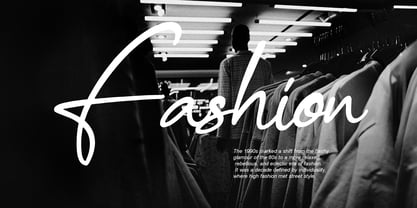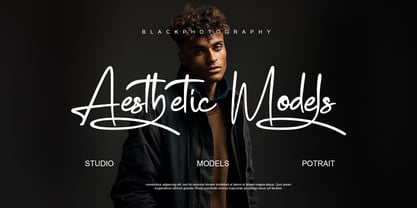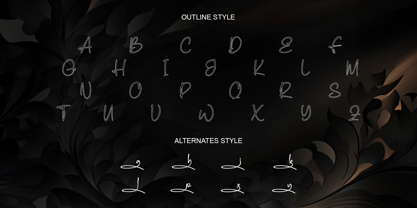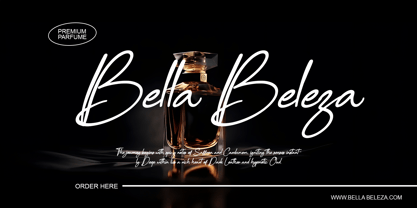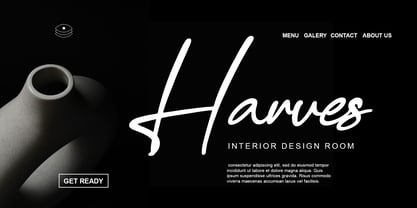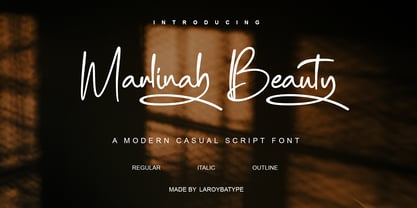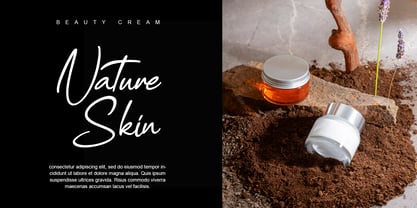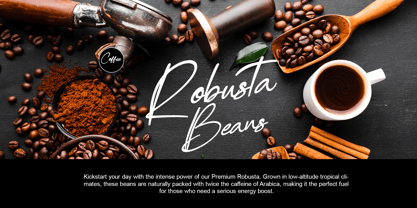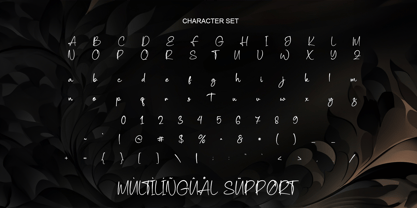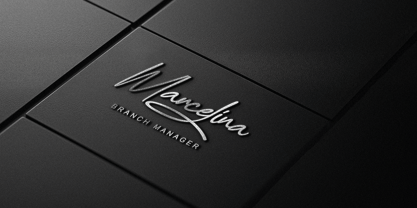
Marlinah Beauty
by Laroyba Type
The Marlinah Beauty Font Family was designed by Habib Abdur Rofi and published by Laroyba Type. Marlinah Beauty contains 4 styles and family package options. More about this family
Marlinah Beauty – Modern Casual Script Font Discover the elegance of handwritten charm wrapped in a modern twist with Marlinah Beauty. This casual script font blends confidence, luxury, and a natural handwritten feel — perfect for any design that needs a personal and stylish touch. Font Character Marlinah Beauty features smooth curves, dynamic strokes, and an authentic handwriting texture. Ideal for beauty & fashion branding, premium product packaging, wedding invitations, social media content, perfume, coffee brands, and promotional designs that aim to feel emotional and glamorous. Three Beautiful Styles Regular – Soft, versatile handwriting for every design purpose Italic – More expressive and stylish look Outline – Contemporary elegance that highlights each character shape Professional Features Included ✔ Stunning stylistic alternates and signature-style characters ✔ Complete uppercase & lowercase letters ✔ Numbers & punctuation ✔ Multilingual support ✔ Works perfectly for logotypes, headlines, and striking design compositions Make every design feel personal, classy, and unforgettable. With Marlinah Beauty, your work won’t just look beautiful — it will tell a story in every stroke.